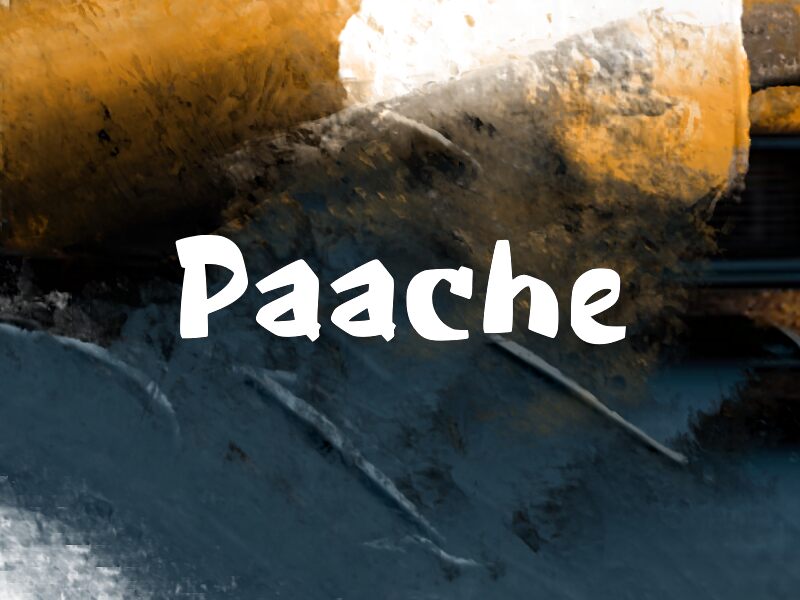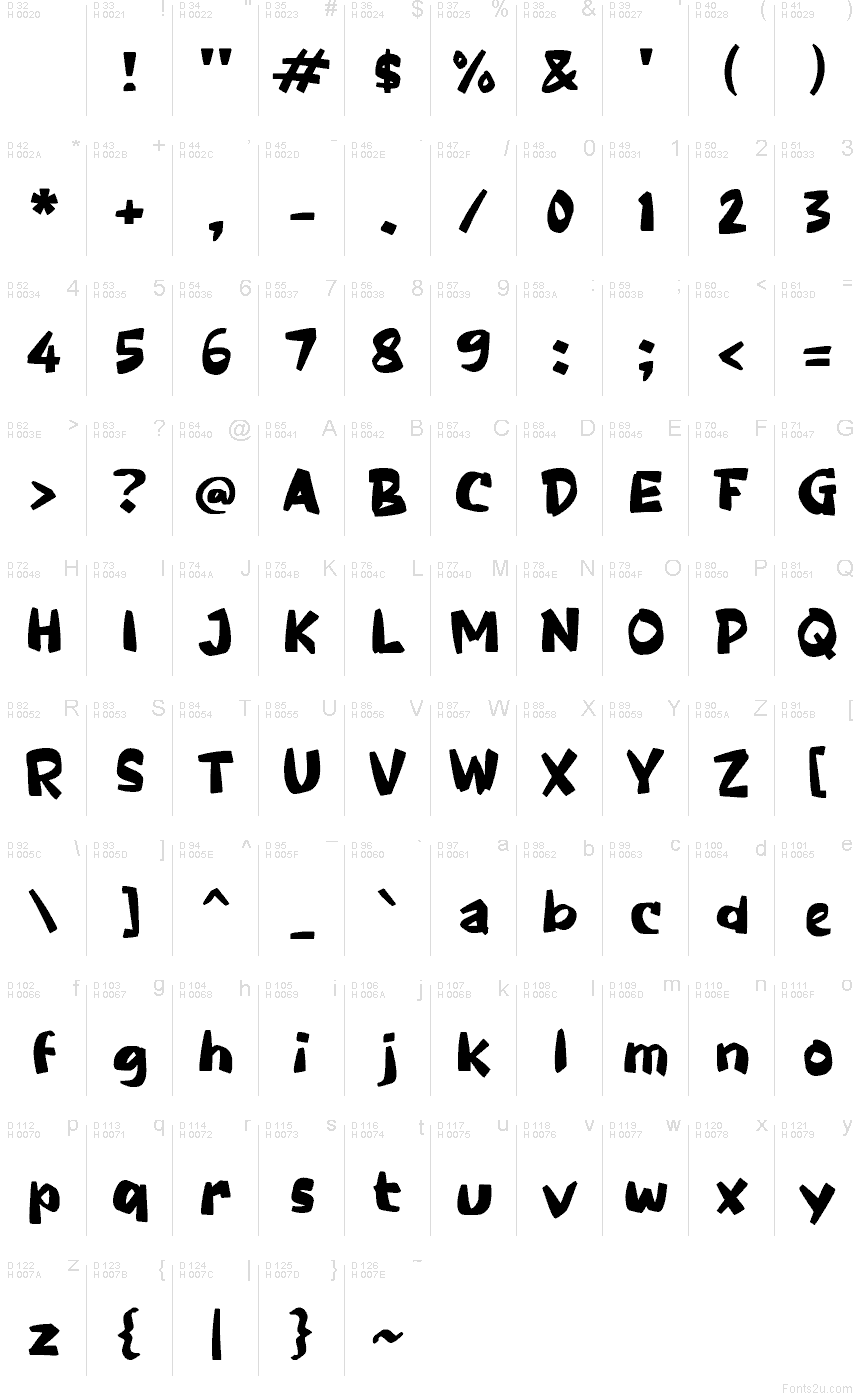
Paache
Paache font by wep is a free brush font that feels like thick, inky strokes dragged across rough paper. Its bold, slightly uneven shapes and chunky curves give it a handmade, sign-painted energy that reads loud and friendly at the same time. Letters squeeze in close, creating a tight, punchy rhythm that pulls the eye across a word in one quick sweep.
Using Paache, this free font shines on poster titles, kids’ book covers, street-food branding, craft packaging, event flyers, and playful social graphics. The dense, dark texture holds up even at larger sizes, making short phrases feel like painted badges. For balance, pair Paache with a clean, neutral sans serif in smaller text to keep the hand-drawn personality in the spotlight.